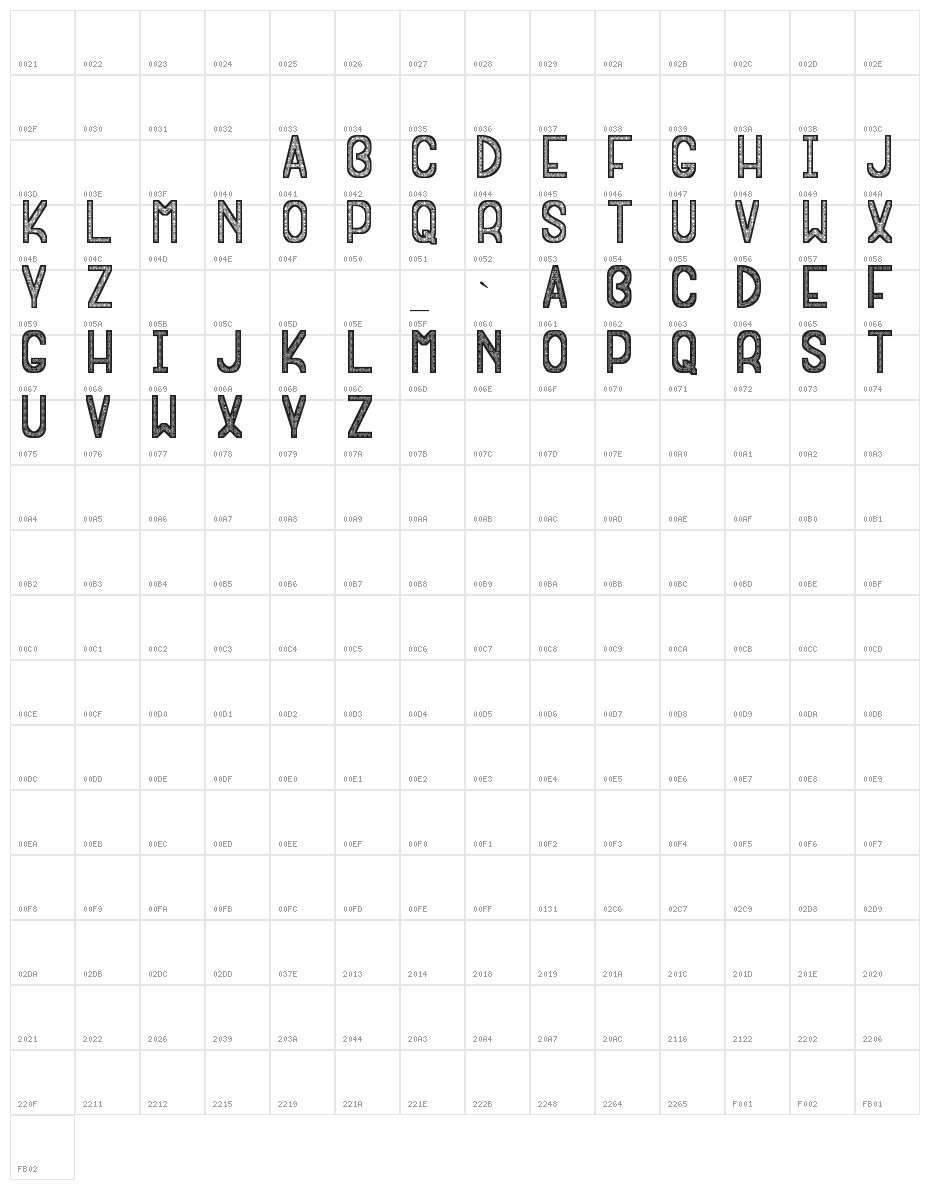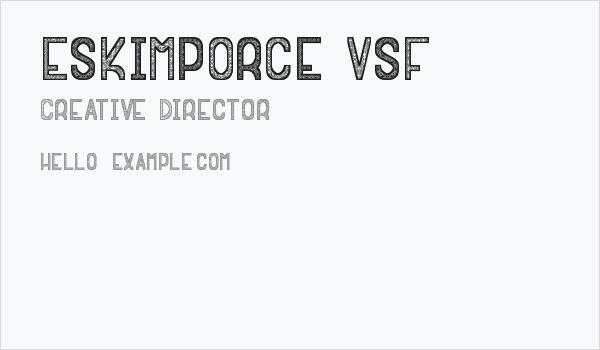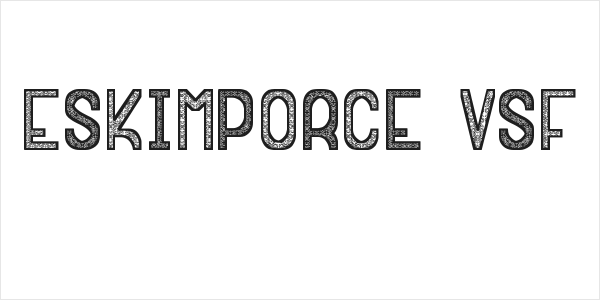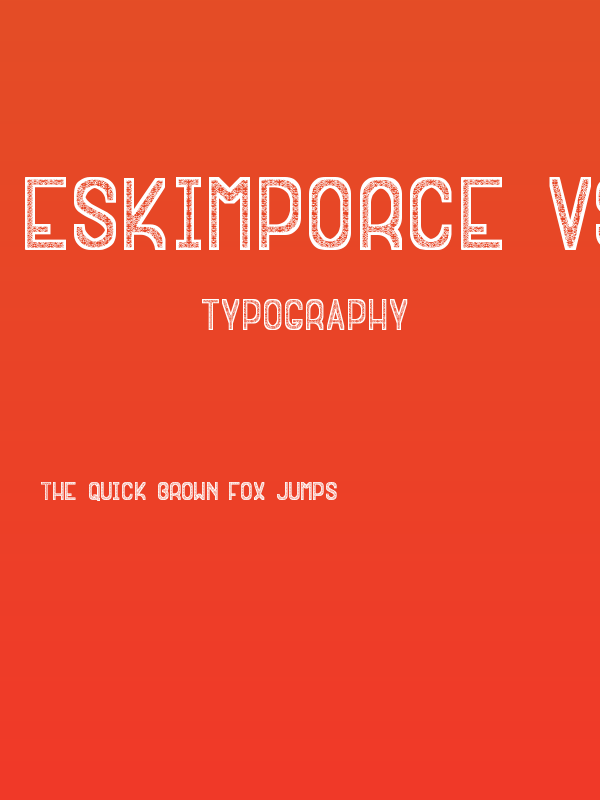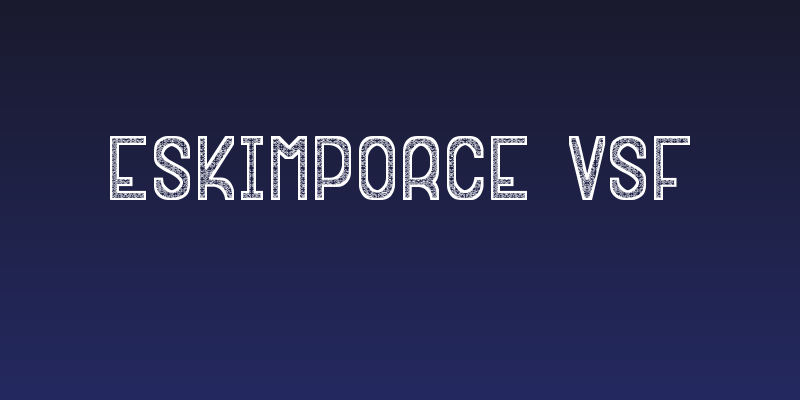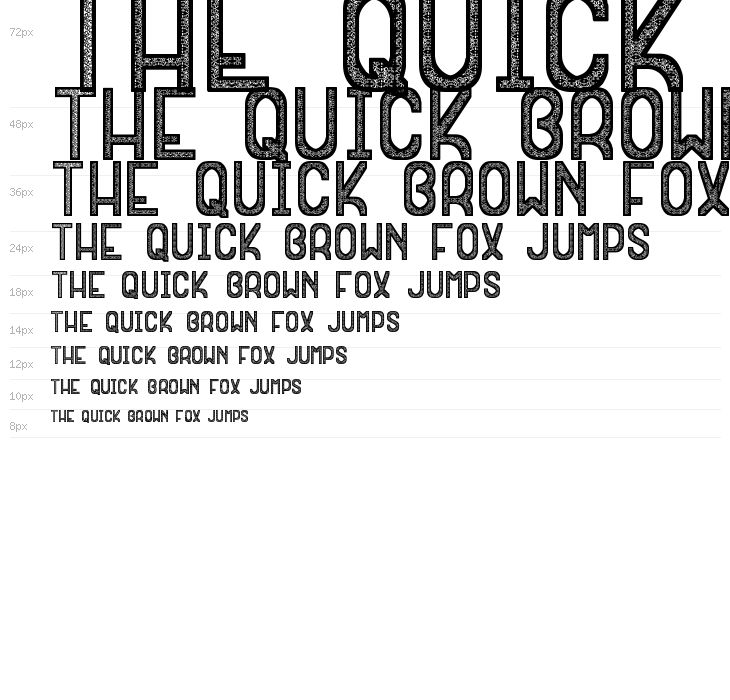
EsKiMpOrCe VsF Font
EsKiMpOrCe VsF Description
This font features a bold, textured design with a distressed appearance, giving it a vintage and rugged feel. The characters are uppercase, with a consistent height and width, creating a uniform look. The texture within each letter adds a unique, handcrafted quality, making it stand out in any design. The font's boldness ensures readability while the distressed texture adds character and depth. This style is reminiscent of classic signage or old printing techniques, making it ideal for projects that require a touch of nostalgia or a rustic aesthetic.
| Proposed Projects | Ideal for vintage-themed posters, rustic branding, event invitations, or any project needing a handcrafted, nostalgic touch. |